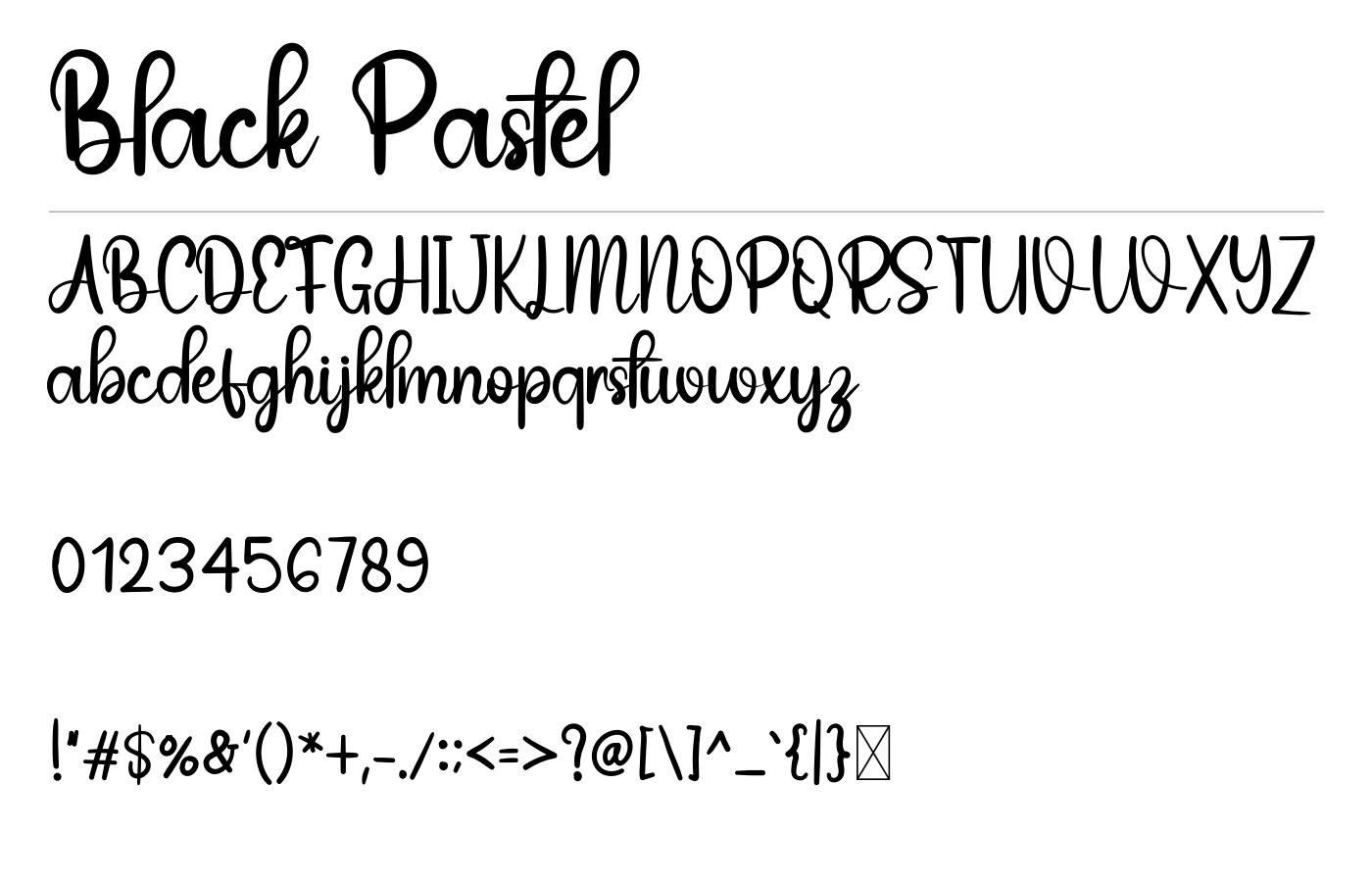
Black Pastel is a playful and whimsical handwritten font featuring a casual, rounded stroke style with medium weight and a friendly, approachable feel. Its tall x-height and unique looped details give it charm and personality, making it perfect for creative projects like invitations, branding, and headlines that want to convey warmth and fun. This font works well where a lively, informal touch is needed without losing readability.
Black Pastel Font
About Black Pastel Font